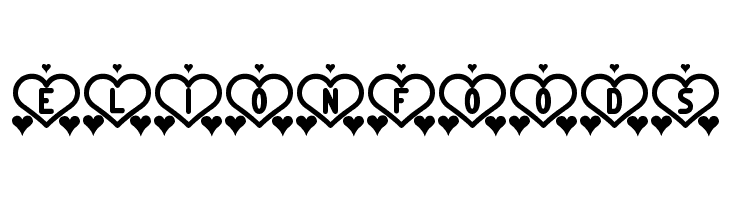
• Ancient warriors and weapons tfb
A decorative font with detailed illustrations of ancient warriors and weapons.
• Ancient Weapons tfb
A decorative font featuring detailed illustrations of ancient weapons.
• AncientBats
Ancient-themed dingbat font with detailed line art illustrations.
• And Love st
• And Run St
A playful, decorative font with unique patterns and textures in each letter.
• AndBullets
An abstract, artistic font with intricate, swirling designs.
• Andiron Outline NF
A bold, outlined serif font with a modern twist, perfect for eye-catching headlines.
• AndironOutlineNF
A bold, outlined font with a modern, geometric style.
• Andover
A modern, elongated font with narrow characters and a sleek appearance.
• Andreas Sans Cnd